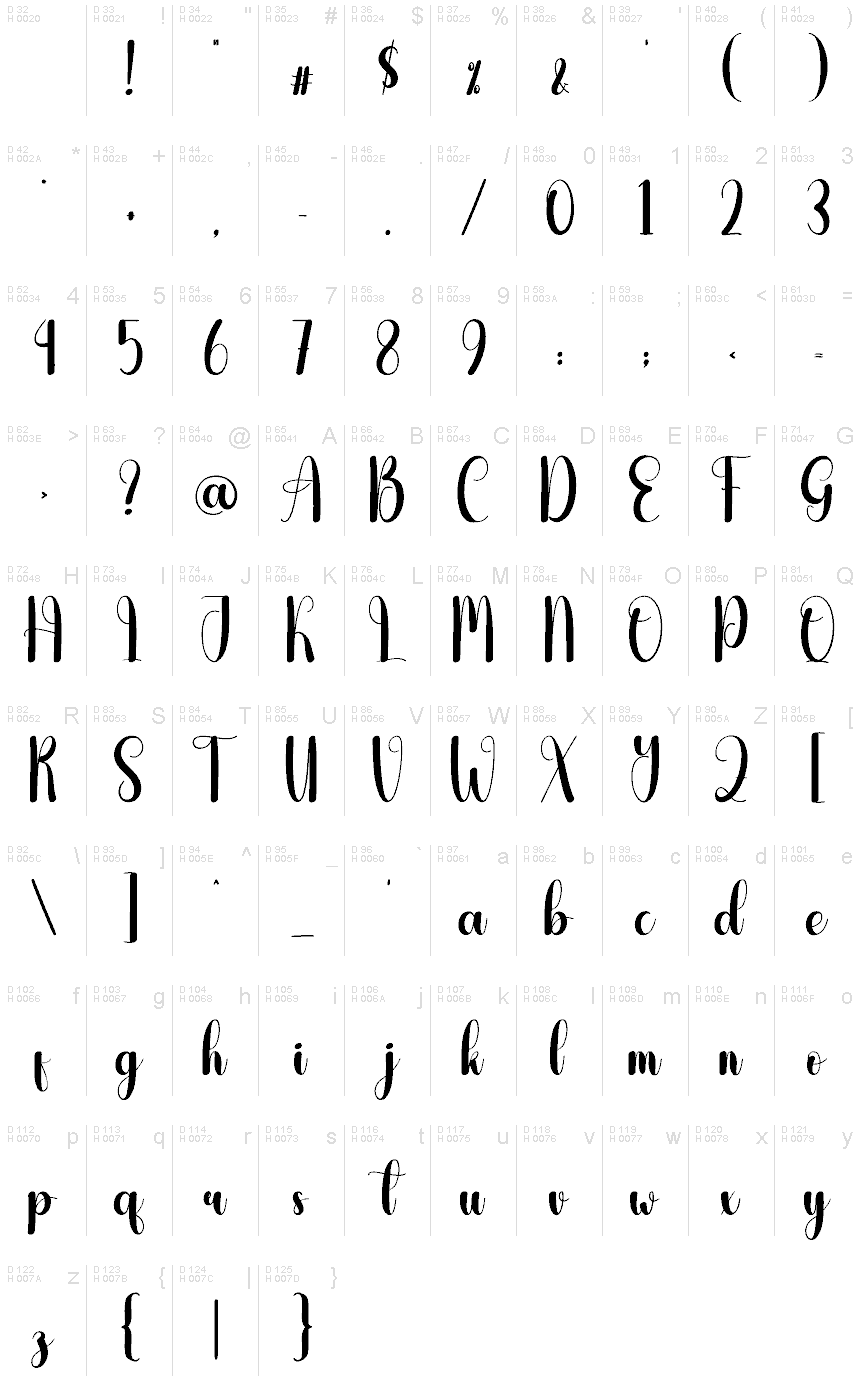
Bigotry
Bigotry font, crafted by Andi Moz, is a brilliant handwritten font with an elegant and flowing appearance. The characters in this free font stand beautifully on their own or when put together in words and sentences. This makes its style also expressive, graceful, artistic, and perfectly meant for contemporary work that demands combination between style and readability.
Take advantage by using Bigotry for branding projects, product design/packaging/labeling, posters, business cards and stationery designs. It is perfect as well for website headers and other online purposes in addition to print media like magazines or ads. Enjoy the wonderful results when you include it in invitations (perfect for weddings!), postcards among other uses!